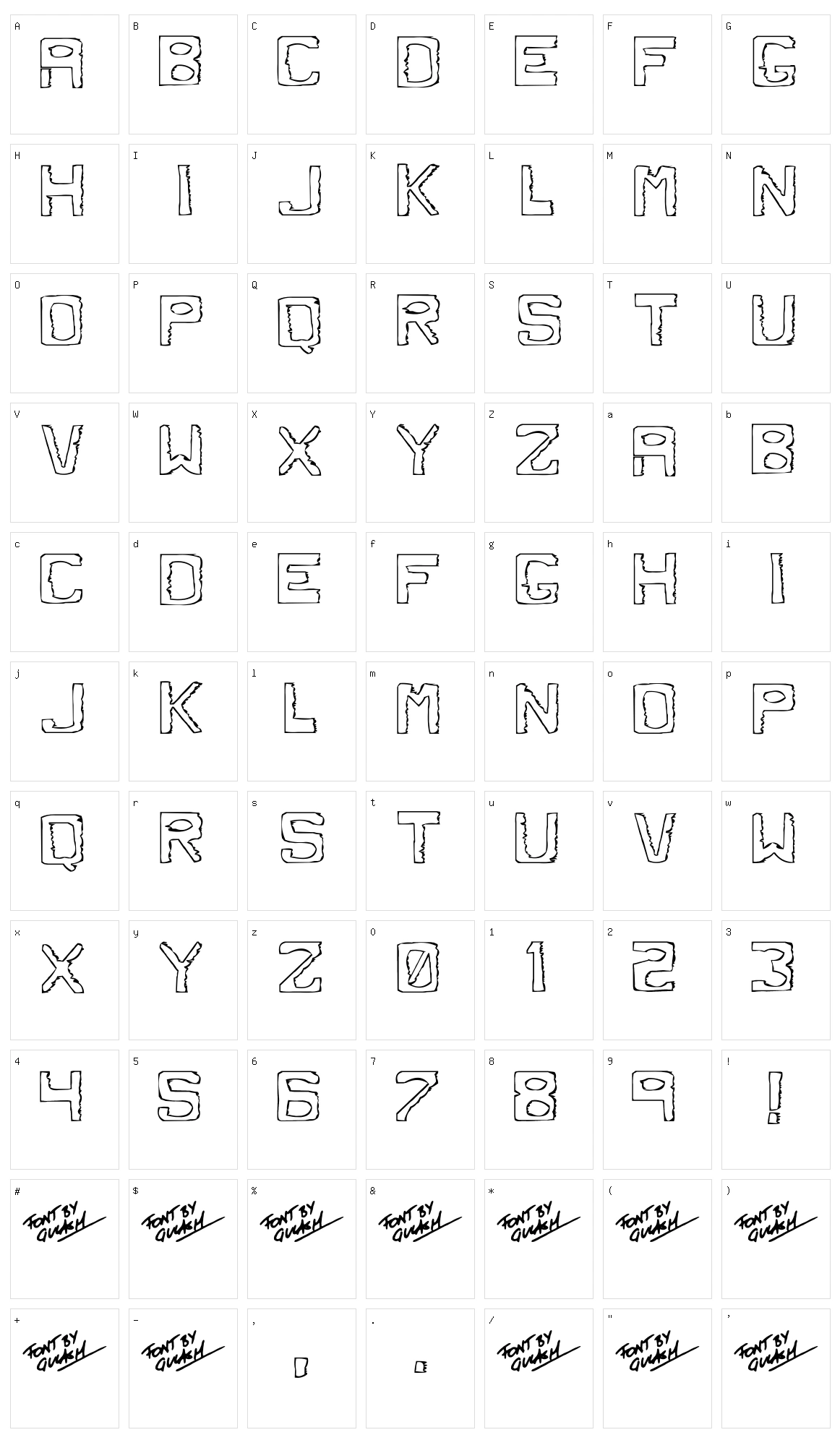
The free font Dirty Dung is carefully designed by PitDGulash, showcasing a thoughtful balance of creativity and usability and falls under the Destroy font style. When you download the ZIP file, it contains only 34.35 KB of font files, making it lightweight and quick to download. Please review the license details below to understand permitted usage and distribution rights. If license information is not available, we recommend using this font for personal projects only or contacting the author directly for commercial usage permissions.
Czcionka DIRTY DUNG jest mojego autorstwa,
zawiera du¿e litery, cyfry
oraz niektóre znaki interpunkcyjne.
The font DIRTY DUNG that was designed by me,
contains large letters, digits
and some punctuations.